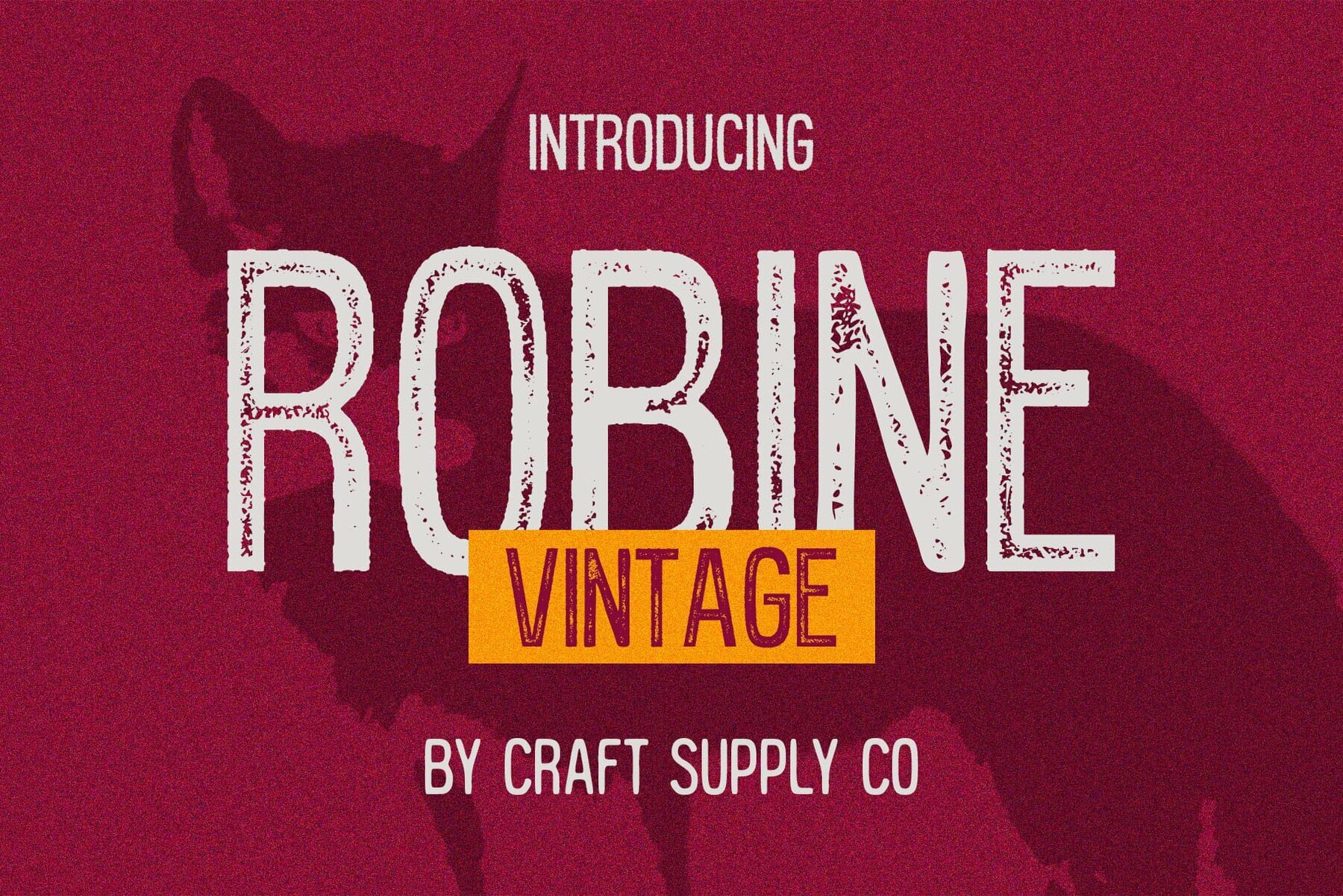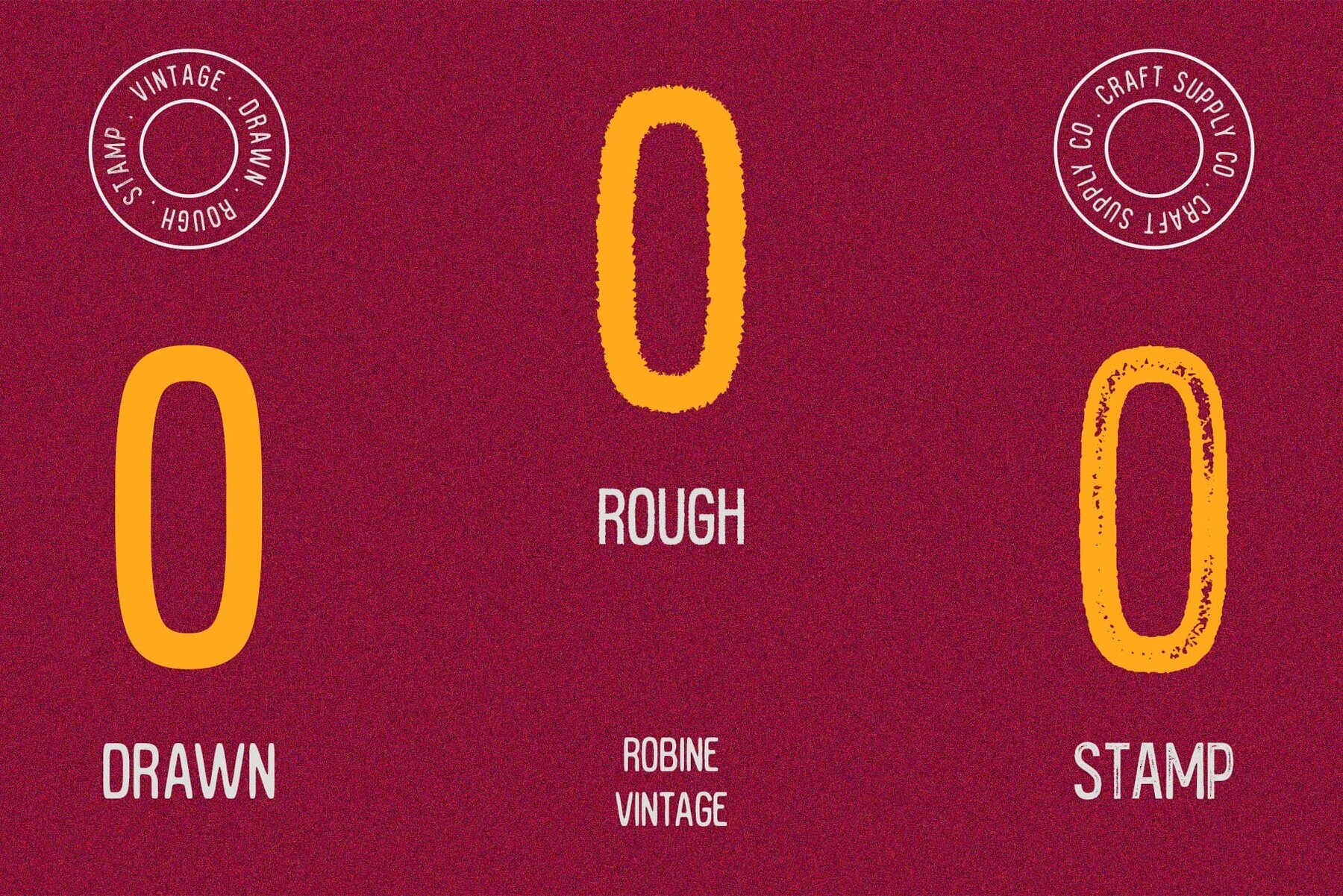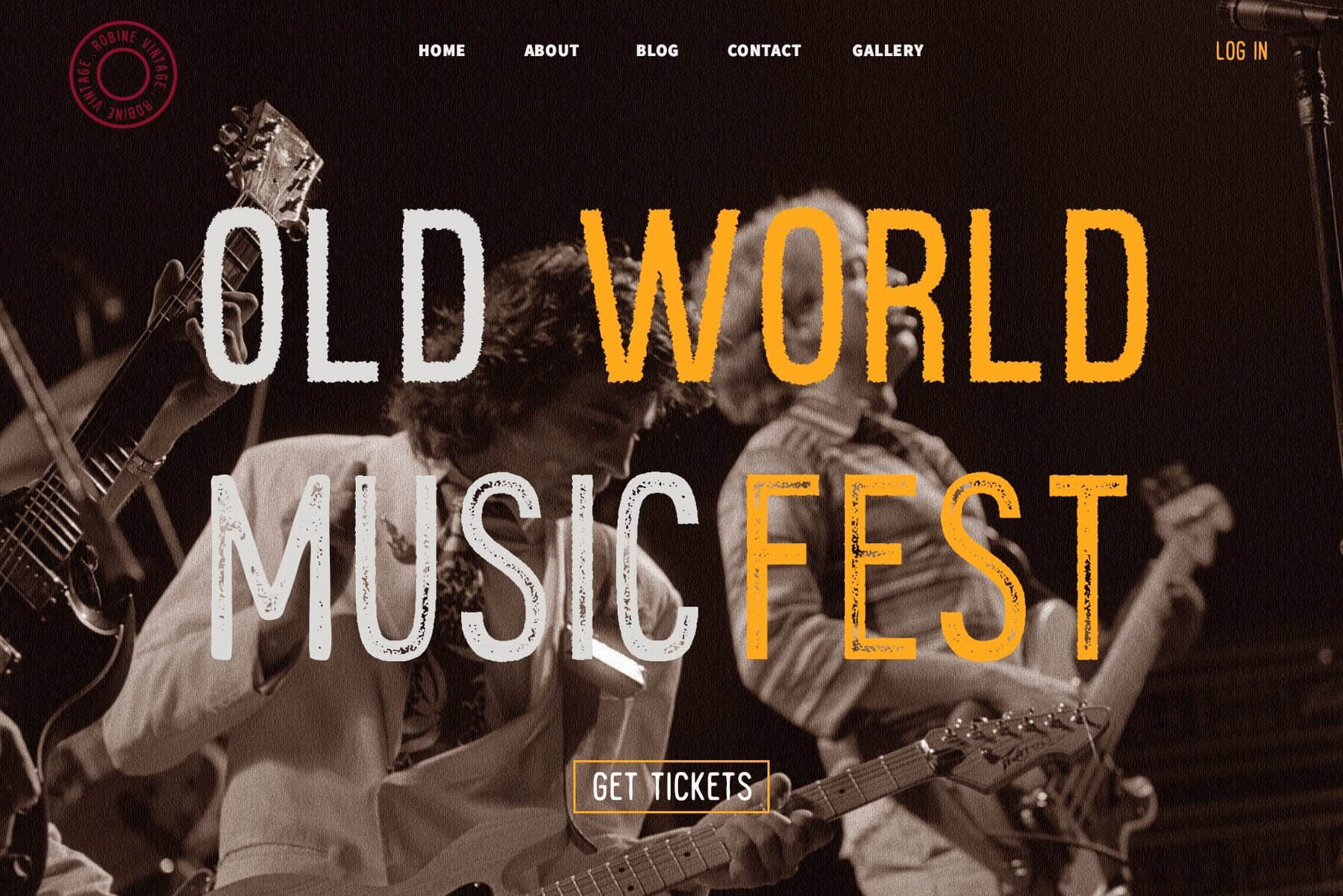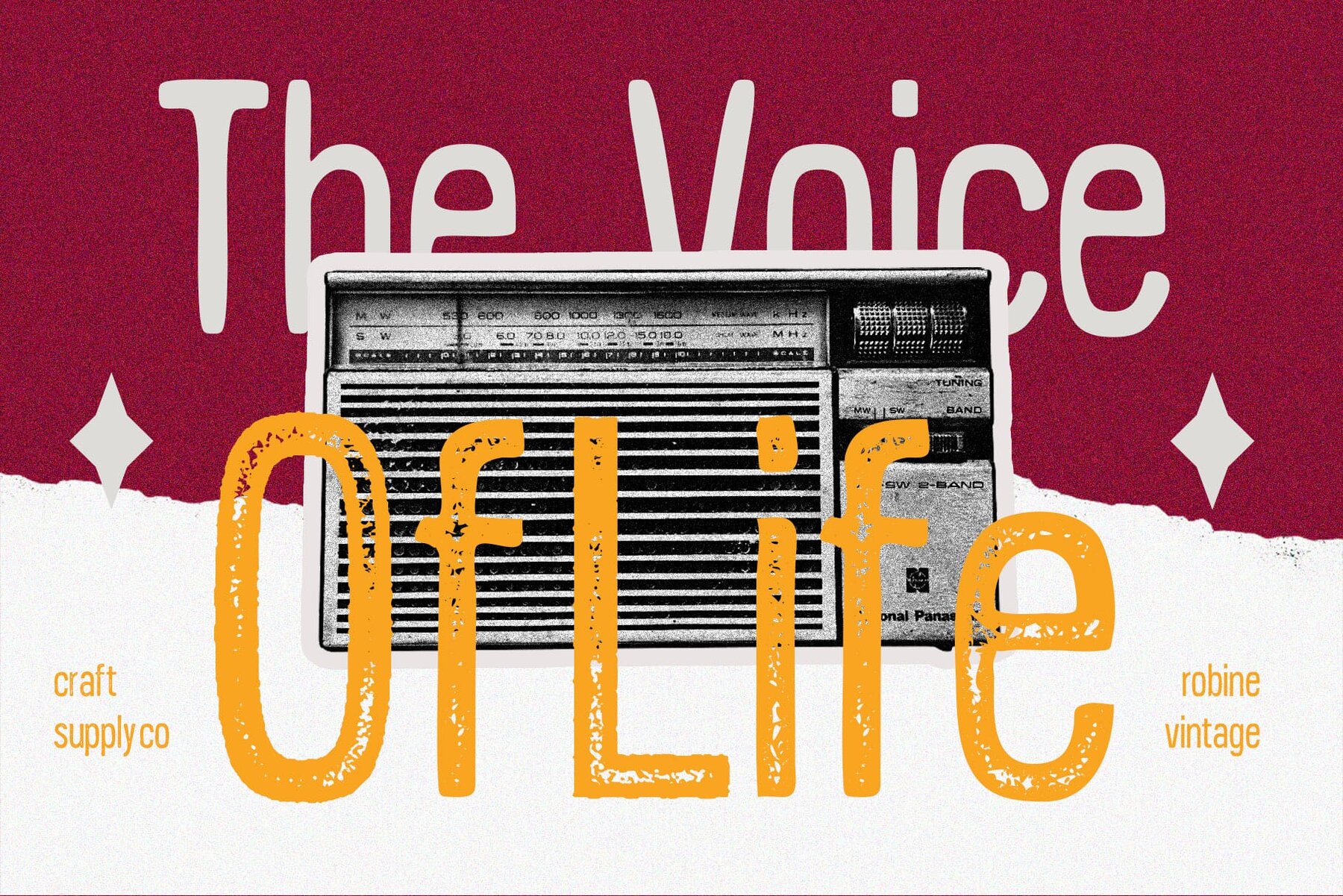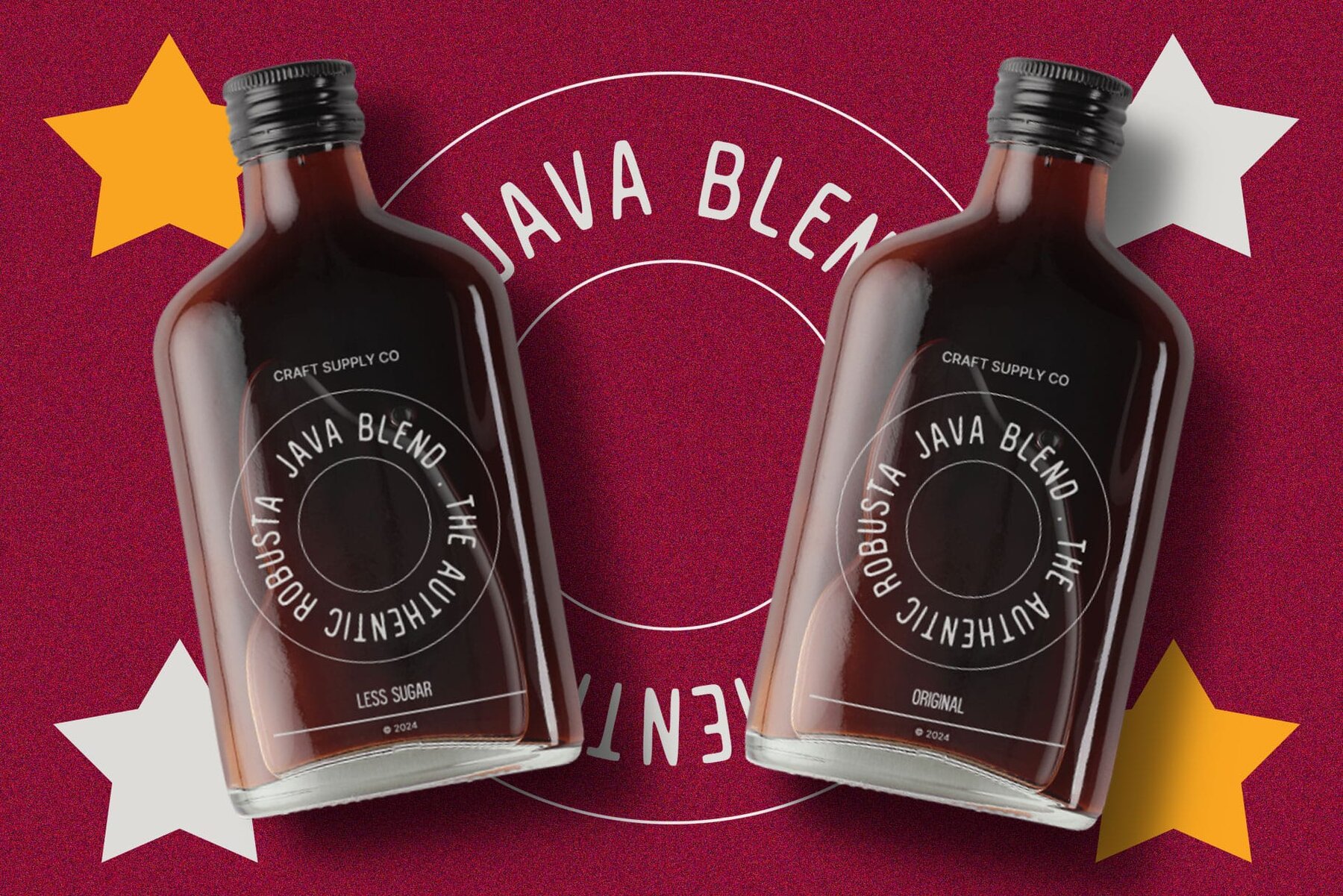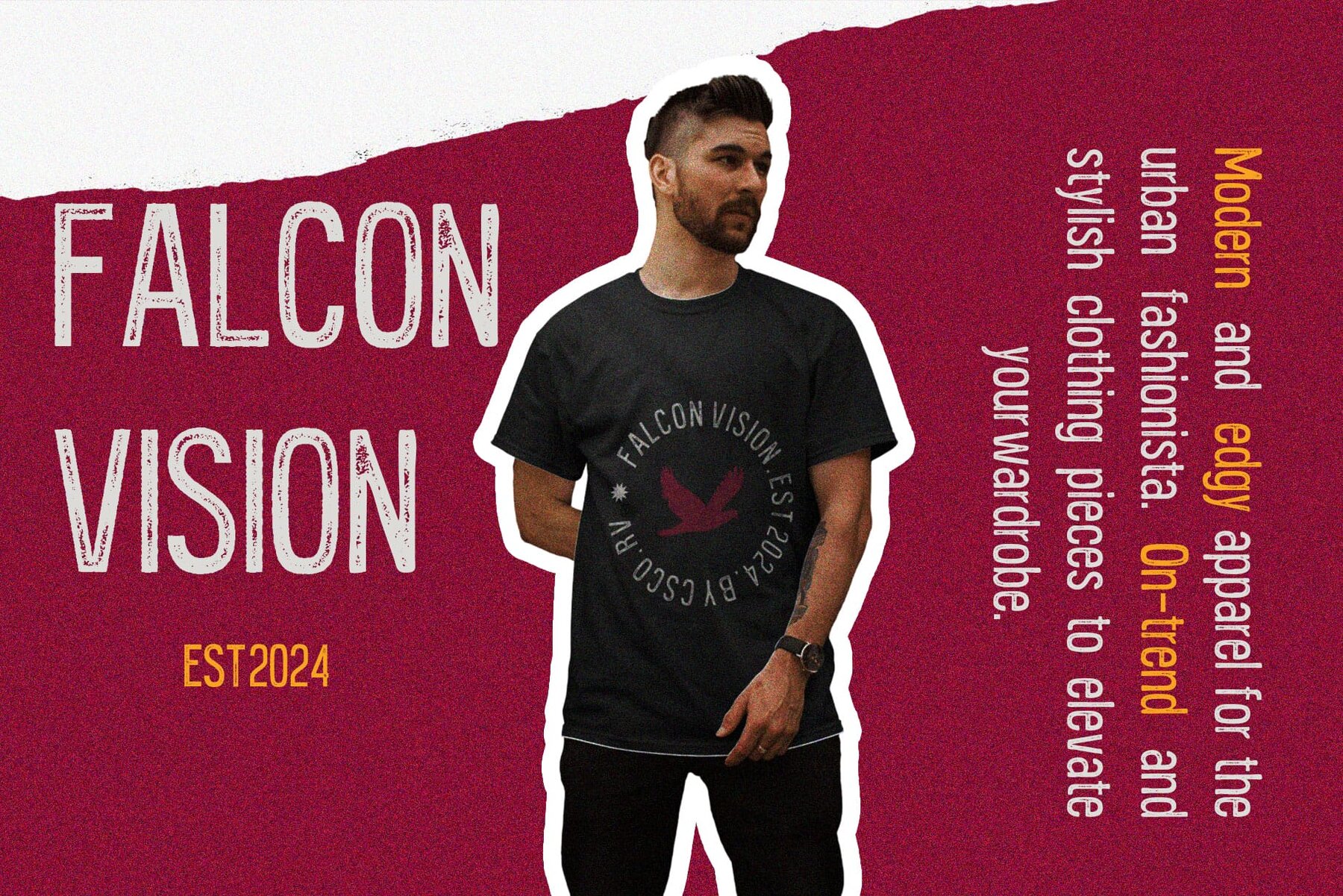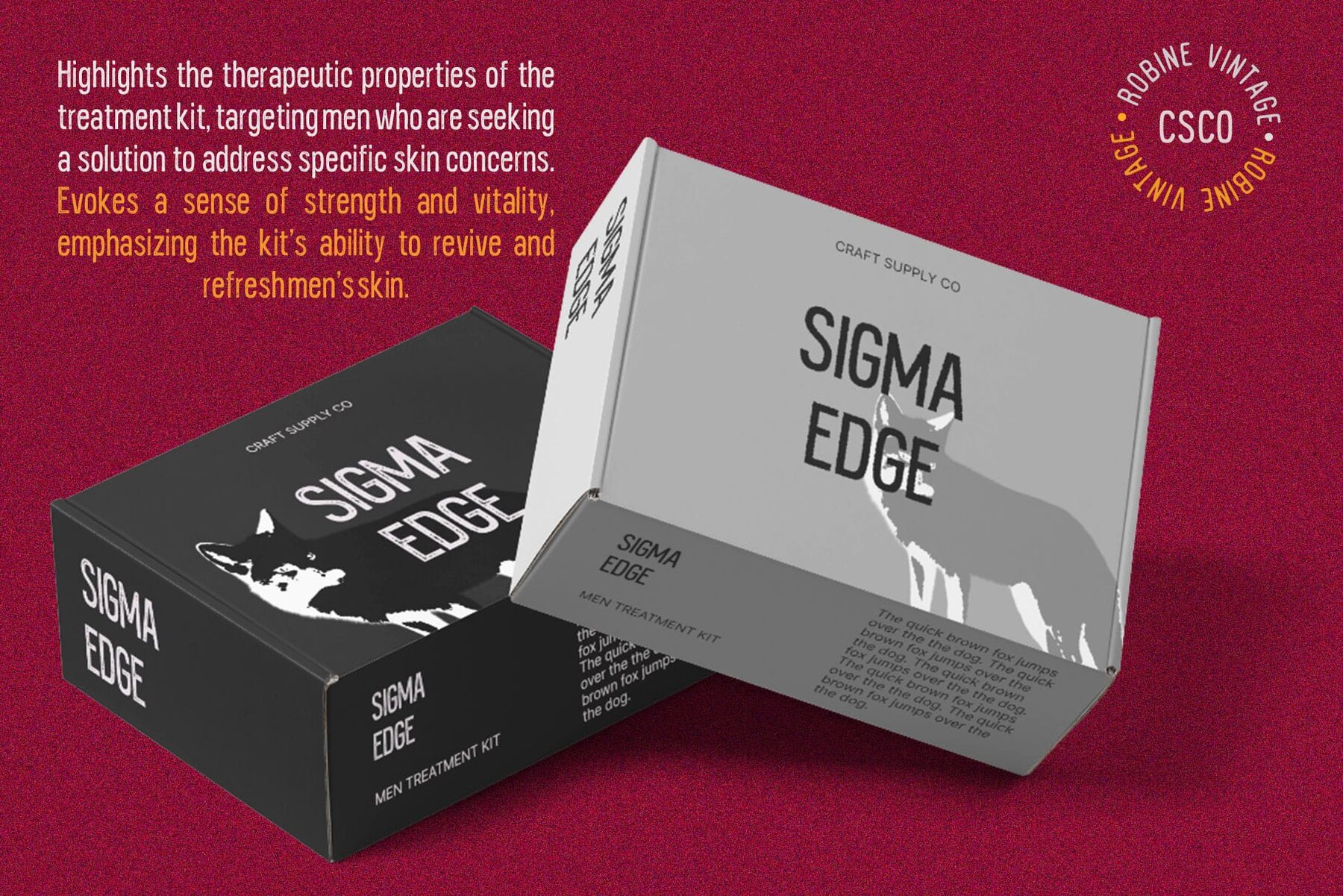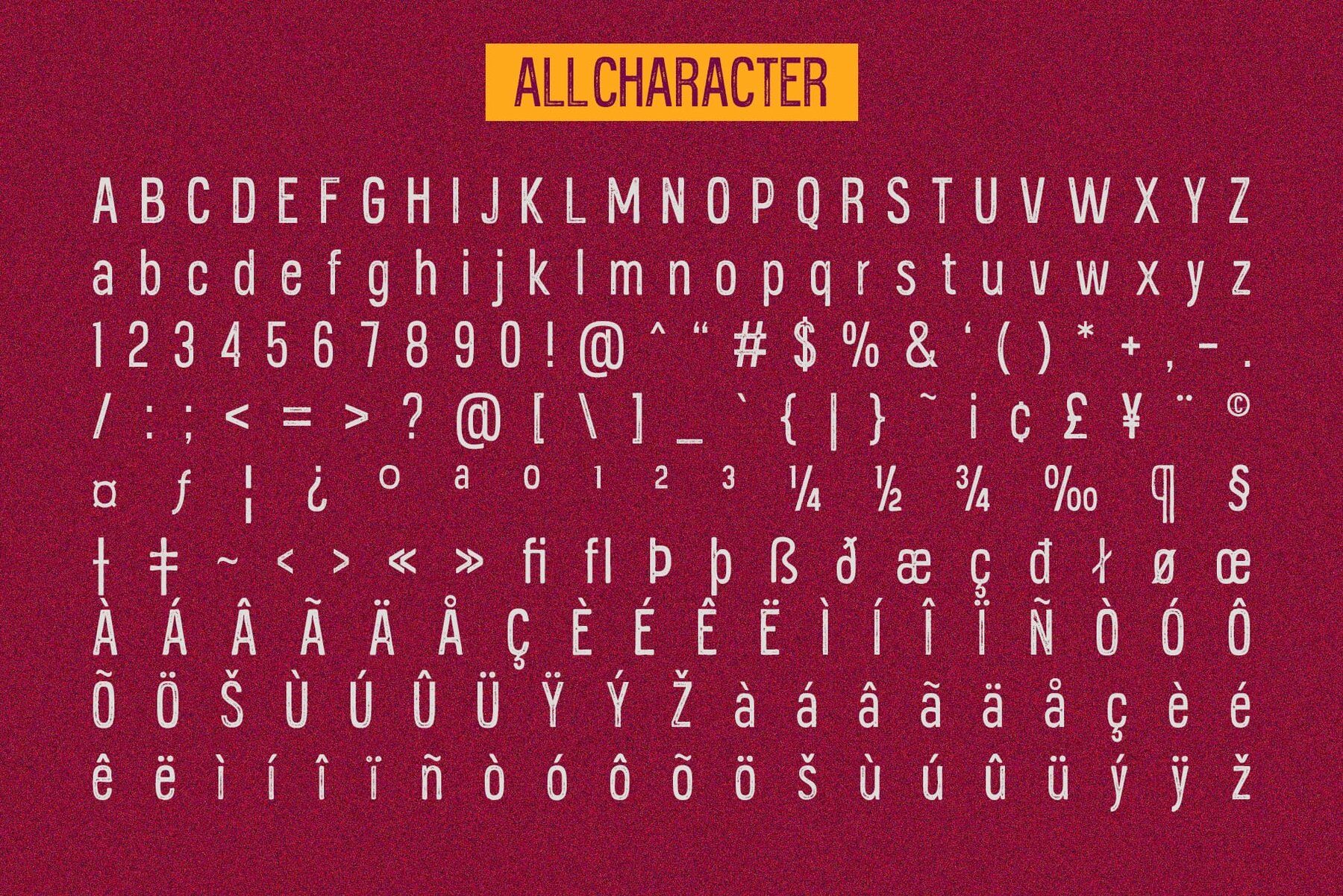
Robine Vintage Font
Discover the charm of Robine Vintage, a sans serif display font that effortlessly merges vintage aesthetics with contemporary design elements. This typeface is perfect for adding a touch of retro elegance to your creative projects. Robine Vintage is a sans serif font that exudes vintage allure while incorporating a modern twist. Its classic yet contemporary design is ideal for projects that require a nostalgia-inspired touch. Characterized by low-contrast strokes, this font makes a bold visual statement. Its carefully crafted characters command attention without being overbearing, making it suitable for various display purposes. The font incorporates a rough stamp drawn effect, offering an authentic vibe reminiscent of vintage printing techniques. This texture enriches each letterform, adding depth and character to your design. Ideal for vintage-themed projects, Robine Vintage infuses a sense of nostalgia and authenticity into branding, packaging, posters, and more. This unique blend of classic style and modern appeal is versatile and evokes a bygone era. No specialized software is required to use this typeface.Robine Vintage: Embodying Vintage Elegance in Modern Design
Vintage-Inspired Sans Serif
Low Contrast, High Impact
Rough Stamp Drawn Effect
Perfect for Vintage Projects